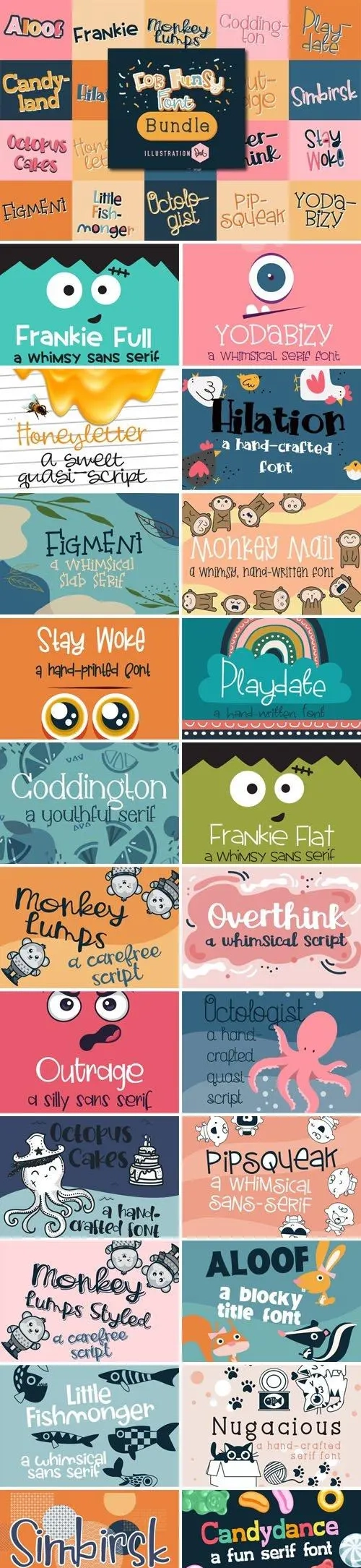
For Funsy Font Bundle – 20 Fonts
The For Funsy Font Bundle is a curated collection of 20 unique fonts, perfect for a variety of design projects. This versatile bundle includes a mix of playful and elegant styles, ensuring you have the right typeface for any occasion.
• 20 distinct font styles
• Includes script, serif, sans-serif, and display fonts
• Variety of weights and styles for flexibility